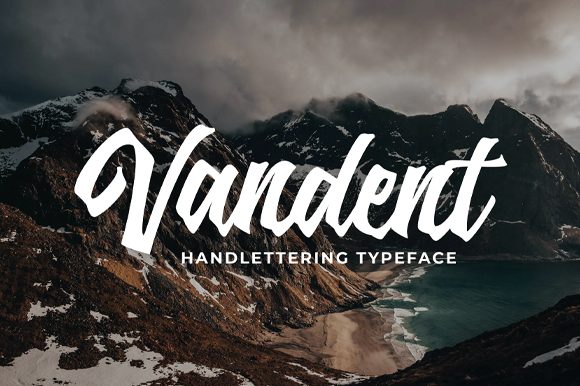
Vandent Font: Elevating Small Business Branding
When I first started my small batch skincare line, I spent months perfecting formulas but only days thinking about typography. My initial labels used a generic free script that looked messy at small sizes and felt disconnected from the premium ingredients inside the jar. It wasn't until I discovered Vandent that my brand finally clicked into place. Vandent is an elegant and flowing handwritten font that maintains its classy calligraphic influences while feeling contemporary and fresh, making it the exact bridge between artisanal charm and professional polish I had been searching for. For any entrepreneur struggling to make their packaging look as good as their product feels, finding the right Script Handwritten typeface is often the turning point in establishing a cohesive visual identity.
Vandent for Skincare Labels and Premium Packaging Design
Applying Vandent to physical products requires understanding how Fonts behave on curved surfaces and textured papers. In my experience redesigning serum bottles and candle jars, this specific typeface proved invaluable because of its balanced stroke weight. Many decorative scripts become illegible when scaled down for ingredient lists or warning labels, but Vandent retains its clarity even at smaller point sizes. The flowing nature of the letterforms adds a sense of luxury and movement to static packaging, suggesting that the product was crafted with care rather than mass-produced. When designing for amber glass bottles or matte paper boxes, the high contrast and smooth curves of Vandent create a focal point that draws the customer’s eye immediately to the product name without overwhelming the necessary regulatory text.
For business owners in the beauty or wellness space, readability on packaging is non-negotiable. I found that using Vandent strictly for the product title and collection name, while reserving a clean sans serif for the functional details, created a hierarchy that felt both expensive and accessible. This strategic use of display typography transforms a simple container into a brand asset. Customers often tell me they picked up the bottle specifically because the label looked "pretty" and "trustworthy," proving that aesthetic choices directly influence purchasing decisions. The font’s contemporary edge prevents the packaging from looking dated or overly vintage, ensuring the brand appeals to modern consumers who value both tradition and innovation.
Elegant Wedding Stationery and Event Branding with Vandent
Beyond product packaging, Vandent serves as a stunning choice for service-based businesses like florists, photographers, and event planners who need consistent branding across digital and print media. As one of the most versatile Script Handwritten options available, it brings a romantic yet structured feel to wedding invitations, save-the-dates, and seating charts. Unlike looser, more chaotic handwriting fonts, Vandent offers enough formal structure to convey reliability and professionalism, which is crucial when clients are trusting you with their most important life events. I have seen fellow creatives use this typeface to unify their Instagram highlight covers, email signatures, and client welcome packets, creating a seamless brand experience that justifies premium pricing.
The emotional resonance of typography cannot be overstated in the event industry. When potential clients receive a proposal or invoice featuring Vandent, the subliminal message is one of elegance and attention to detail. It softens the transactional nature of business documents while maintaining legibility. For digital applications, such as website headers or Pinterest graphics, the font scales beautifully without losing its delicate nuances. This adaptability means you don't need separate branding assets for print and web; one carefully chosen font family can anchor your entire visual identity. The key is to allow plenty of whitespace around the lettering, letting the elegant swashes breathe and enhancing the overall sense of sophistication.
Pairing Vandent with Clean Sans Serif Fonts for Social Media Graphics
Creating engaging social media content often hinges on effective font pairing, and Vandent shines brightest when contrasted against minimalist typography. When I refreshed my Instagram feed, I paired Vandent with a geometric sans serif to balance its ornate flourishes with modern stability. This combination is particularly effective for quote cards, announcement posts, and promotional banners where you need to capture attention quickly in a scrolling feed. The handwritten element adds personality and warmth, stopping the scroll, while the supporting sans serif ensures the message is instantly readable on mobile screens. This dynamic duo communicates that your business is both creative and organized, a combination that builds trust with prospective customers.
- Headline Hierarchy: Use Vandent for short, emotive keywords like "New Arrival," "Sale," or "Handmade," and use a bold sans serif for the explanatory details.
- Color Contrast: Vandent looks exceptional in metallic gold or white against dark backgrounds, making it ideal for luxury Reels covers or Story templates.
- Spacing Matters: Increase tracking slightly on the supporting sans serif to match the open, airy feel of the Vandent script.
- Consistency: Create three to five core templates using this pairing to ensure your feed looks curated and professional over time.
Checking the included file formats and language support is equally important for international sellers or those expanding their product lines. Ensure the download includes OTF or TTF files compatible with your design software, whether you use Adobe Illustrator, Canva, or Procreate. Some versions of Vandent may include ligatures or stylistic alternates that can further customize your logo or packaging, adding unique flair that sets you apart from competitors using default settings. By taking the time to review these technical details upfront, you avoid costly reprints or legal headaches down the road. Ultimately, treating typography as a serious business investment rather than an afterthought is what separates hobbyists from established brands. Vandent provides the aesthetic foundation for that growth, but your diligence in implementation ensures the results are sustainable, professional, and truly yours.